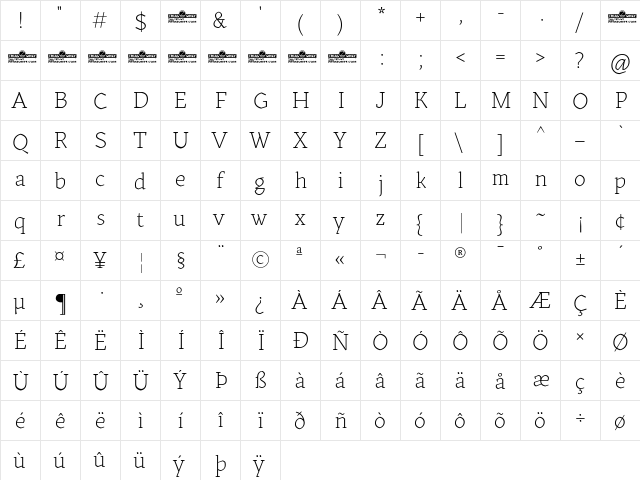
Kitsch Text Trial Extralight
| Foundry | Francesco Canovaro&Mariachiara Fantini |
| Designer | Francesco Canovaro&Mariachiara Fantini |
Design Context for Kitsch Text Trial Typeface
Kitsch Text Trial offers clean, dependable letterforms without strong stylistic allegiance, making it a practical choice for designers who need flexibility. Its slender proportions lend an understated elegance to any composition.